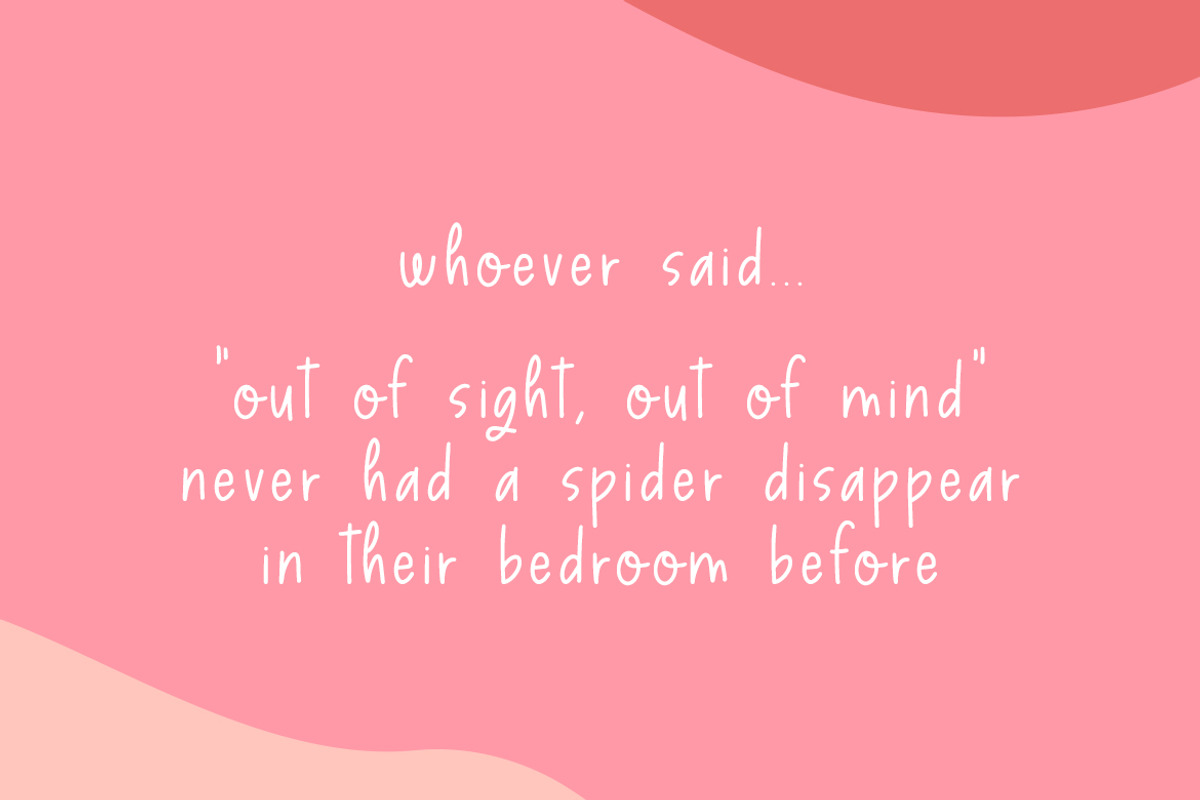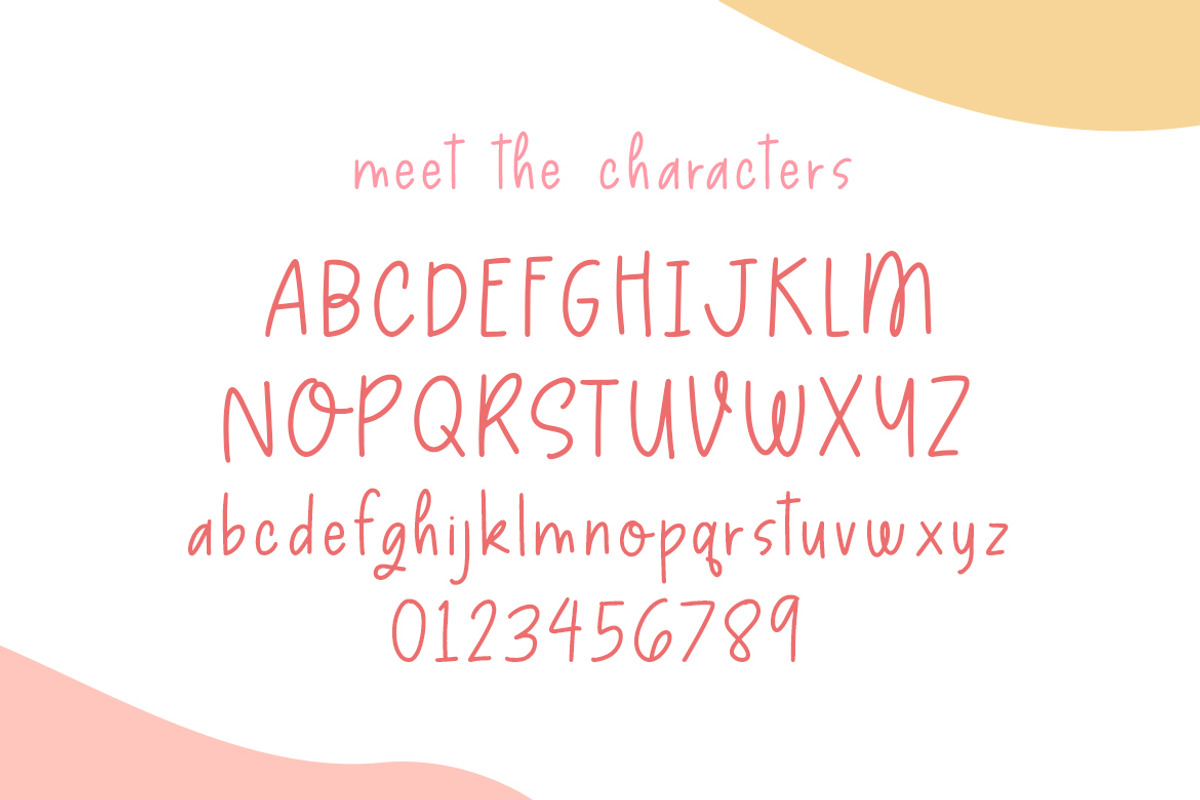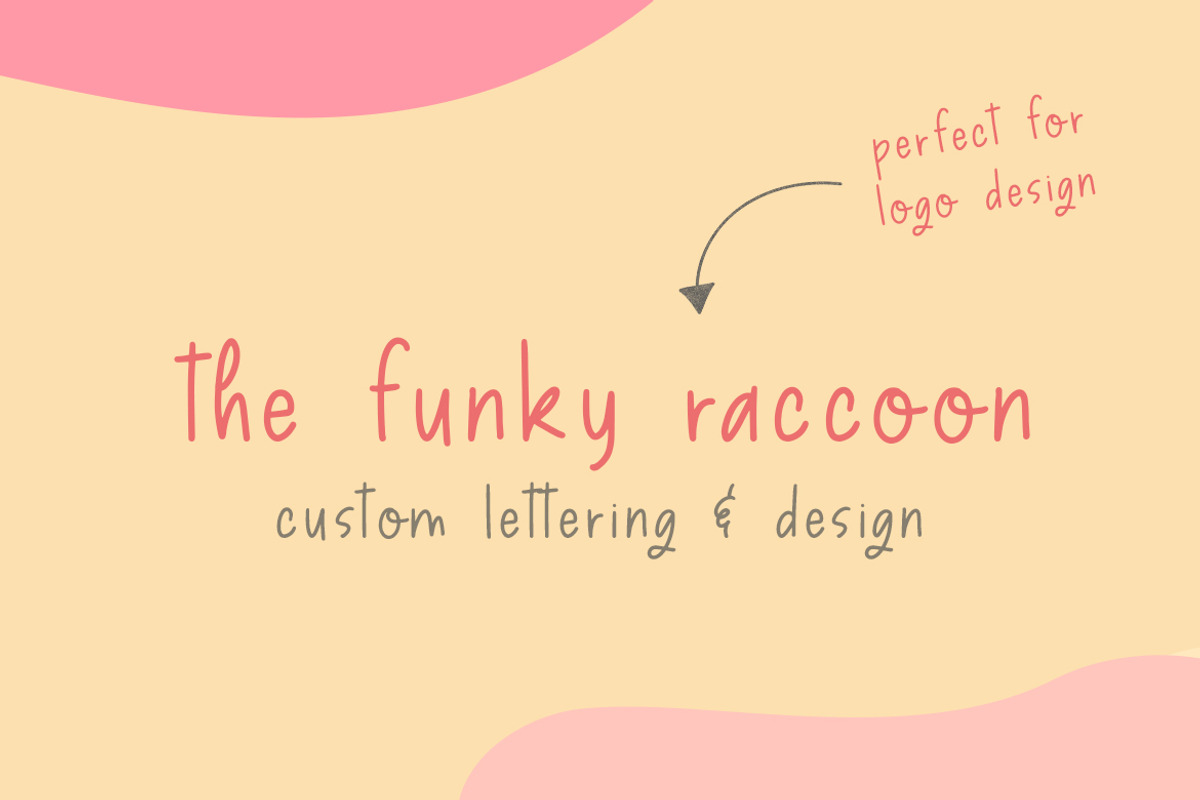
Alone Together Font
Why Alone Together Font is worth a look
Alone Together Font by Salt & Pepper Designs fits naturally into Branding, posters, packaging, typography.